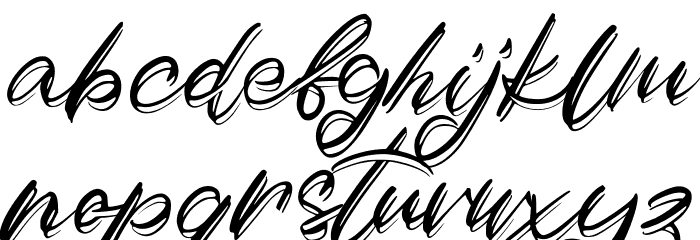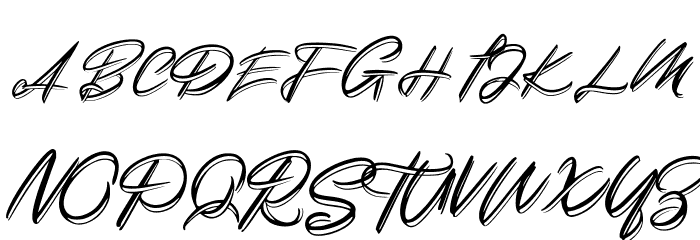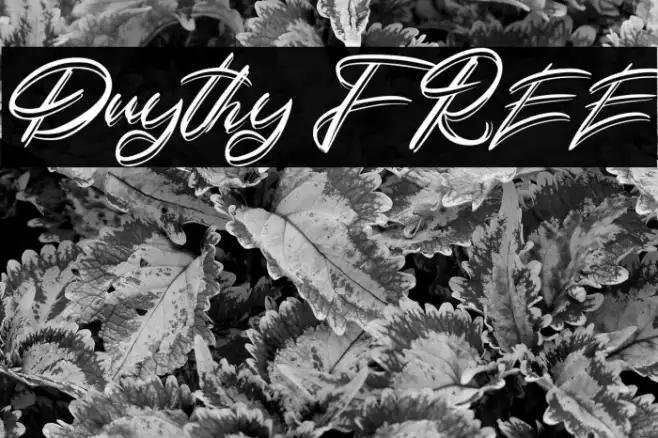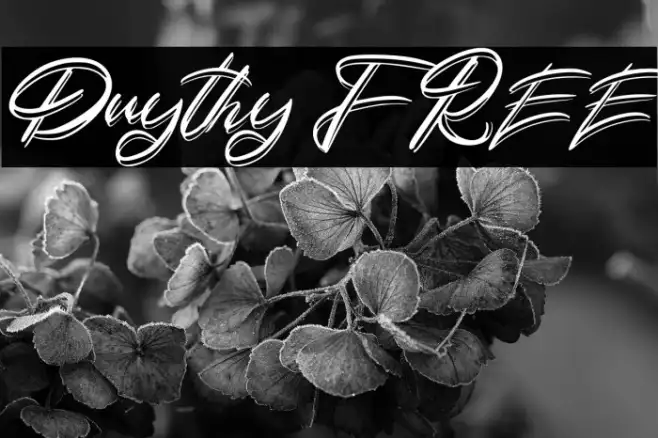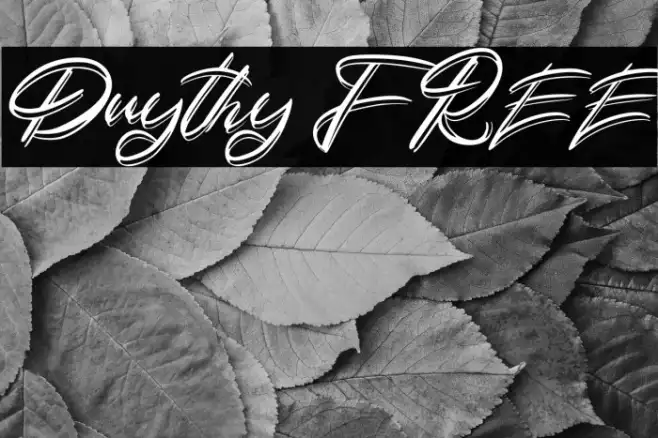
Duythy FREE Font
This font features a dynamic and flowing script style, characterized by its elegant and cursive letterforms. The strokes are smooth and connected, creating a sense of fluidity and movement. The uppercase letters are bold and prominent, while the lowercase letters maintain a consistent flow, enhancing readability. The font exhibits a high contrast between thick and thin strokes, adding to its decorative appeal. The overall design is sophisticated and artistic, making it suitable for projects that require a touch of elegance and flair.
A dynamic and elegant script font with high contrast and flowing letterforms.
- Font: Duythy FREE
- Proposed Projects: Ideal for wedding invitations, greeting cards, branding, and logo design.
- Category: Script
- Use Case: Logos, Invitations, Decorative text